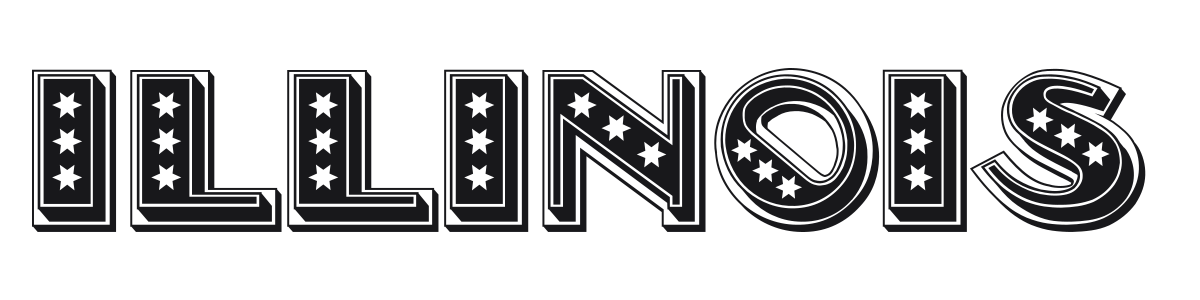
Illinois
Illinois is a bold condensed display serif loaded with patriotic Americana personality. Stars are punched into the letterforms and a bright inline stripe runs through every stroke, topped off with a heavy drop shadow that gives the whole thing a vintage signage or license-plate feel. It brings the energy of a state fair banner or stadium scoreboard to headlines and posters.